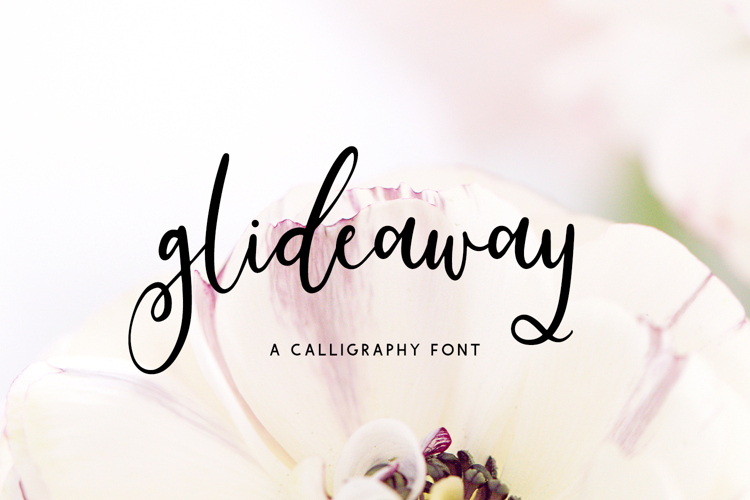
Introducing Glideaway, a modern calligraphy script. This handlettered font features alternate characters to customize your text, including some cute flourished descenders to bring the perfect feminine feel to your project.
Glideaway Script is best for:
- website design + website accents - think travel blogs, fashion blogs, & more